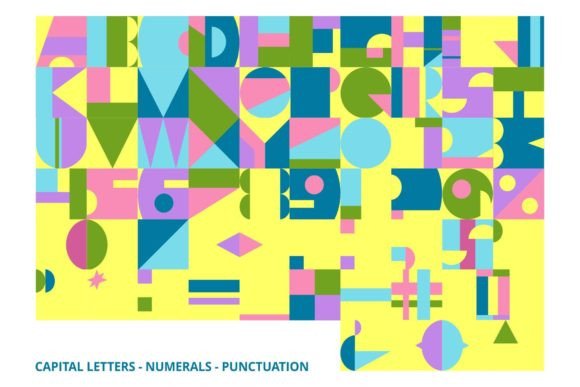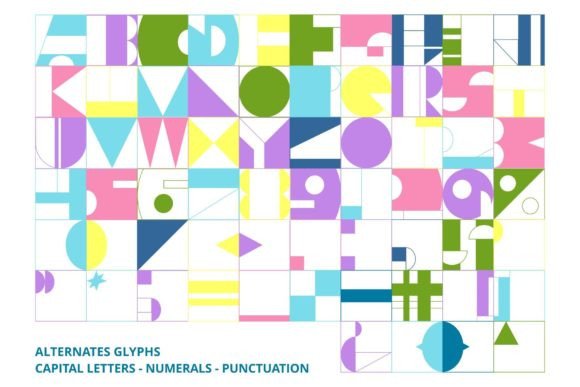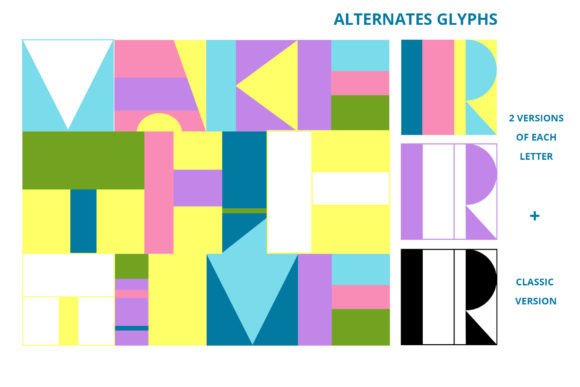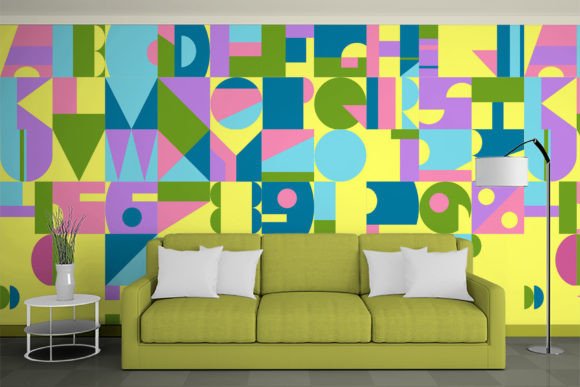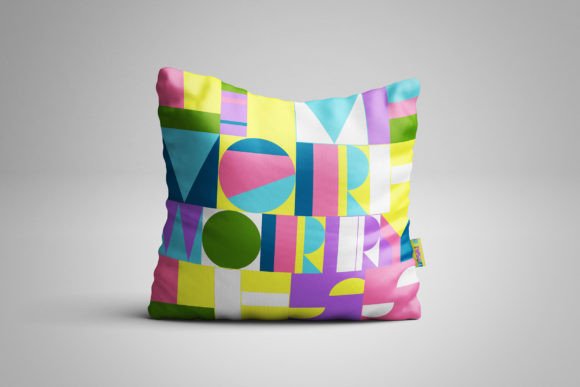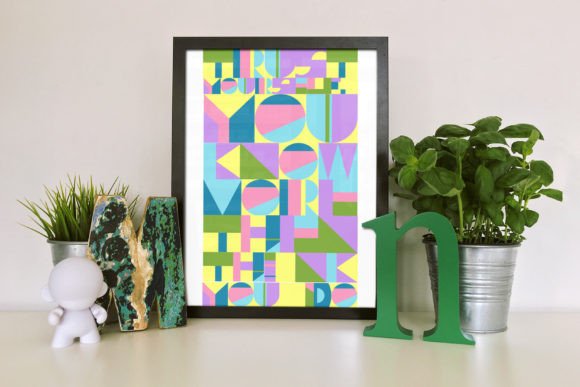
Introduction to Mosaic Font
Have you ever stared at a blank canvas, wondering where to start your next creative project? You’ve got an idea, but it’s just not quite coming together. That’s where the perfect design resource can make all the difference. For designers looking to add a touch of whimsy to their work, the Mosaic Font is an absolute game-changer.
With its bold, all-caps display, this unique typeface is sure to grab attention. But what really sets it apart is the color version, which allows you to create truly original designs. Whether you’re working on a project that requires a transparent background or want to add some visual interest to your graphics, the Mosaic Font is the perfect tool for the job.
Key Features of Mosaic Font
- High-quality, vector-based design, ideal for use in various creative projects.
- Unique, intricate design, perfect for adding a touch of elegance and sophistication to any creative project.
Honest Review: Mosaic Font
As a designer, I’ve had the pleasure of working with numerous design resources, but the Mosaic Font has truly stood out from the crowd. This font is perfect for any creative project that requires a touch of elegance and sophistication.
What works well: ✨ I love how versatile the Mosaic Font is. Its unique blend of modern and vintage elements makes it suitable for a wide range of designs, from minimalist logos to elaborate typography projects. The font is also incredibly easy to use, with a transparent background that makes it simple to layer with other design elements.
Some limitations: ⚠️ While the Mosaic Font is generally high quality, I did find that it can be a bit too ornate for certain projects. This can make it difficult to read in smaller sizes, so it’s essential to use it thoughtfully. Additionally, the font is only available for personal use, which may be a drawback for designers working on commercial projects.
- Perfect for creative projects requiring elegance and sophistication
- Unique blend of modern and vintage elements
- Easy to use with transparent background
- High quality design resource
Mosaic Font
Tips for Getting the Most Out of Mosaic Font
To get the most out of the Mosaic Font, experiment with different font sizes and styles to create unique and eye-catching designs. You can also combine the font with other design elements, such as images and shapes, to create a visually appealing project.
The Mosaic Font is perfect for a variety of projects, including graphic designs, digital art, and even web design. Its transparent background and high-quality design make it a versatile and useful resource for any creative project.